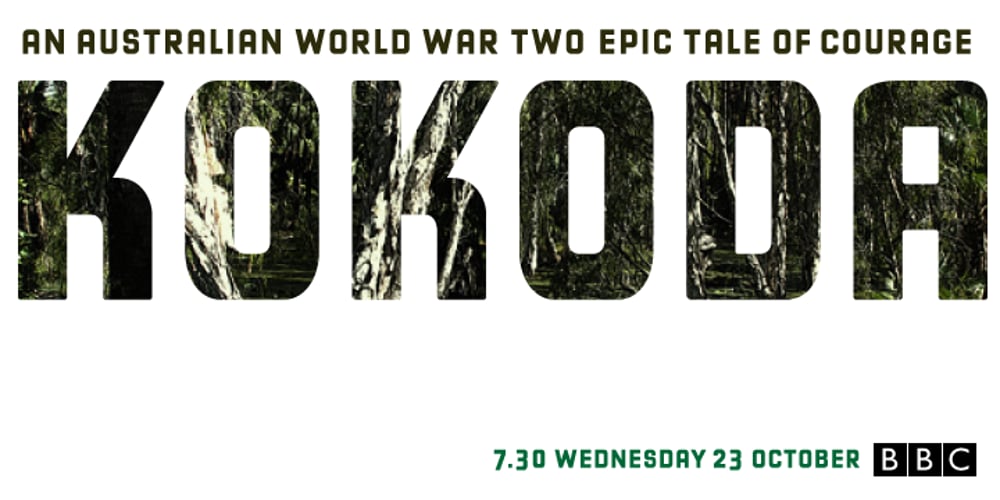
Berber Font Family was designed by Niels Oeltjen, Lan Huang and published by Letterbox. Berber contains 2 styles and family package options. Initially inspired by an untitled typeface from an old hand-lettering book, Berber has been extensively developed over two incarnations to function as a very strong and confident sans. The 2011 Berber revisions have enabled Berber to be used across longer settings as well as its more conventional use on larger applications such as signage. Berber was used as the text face for issue 46 of Eye, the graphic design journal. The typeface now features both king caps and small caps. Extensive additions to the numerals sets and complete opentype sets of international diacritics also extend its usage.